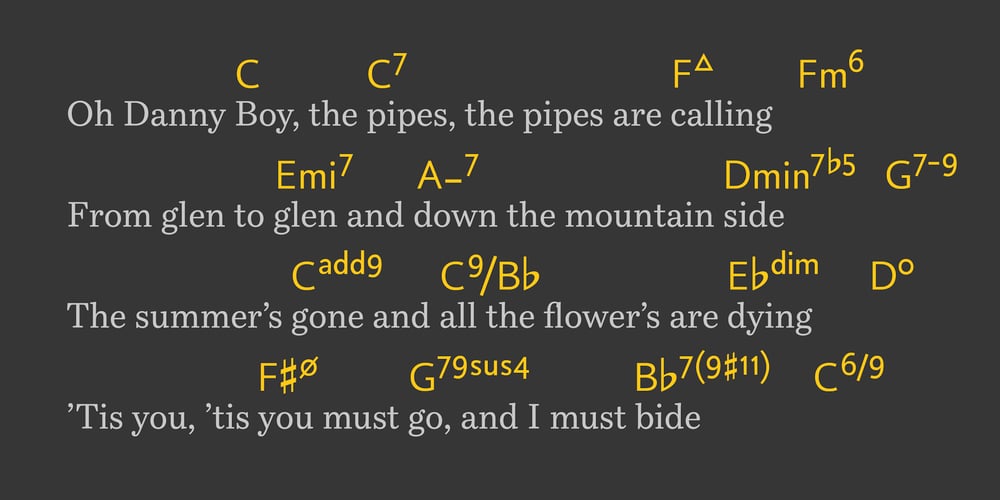
Chord Symbols Light
Chord Symbols Light font
Chord Symbols Light Font Family was designed by Tijs Krammer and published by Tijs Krammer. Chord Symbols Light contains 1 styles and family package options. Chord Symbols is a font for musicians. With this font, you can quickly write beautiful chords, using only simple keyboard characters as input. Musicians tend to write chords with regular characters. They use # instead of a genuine sharp, b instead of a genuine flat, dim instead of a small circle, etc. With Chord Symbols, your chords will be better looking, more easily readable and more efficiently notated. Chord Symbols helps you to write the chords the way you like it. Whether you prefer ‘maj7’ or ‘m7’ or a small triangle for a major seventh, whether you want ‘m’, ‘mi’, ‘min’ or a horizontal line for a minor chord, this font will suit you. Chord Symbols is originally created out of the need to write chords above pop song lyrics. It is designed to also work smoothly in music notation software, like Sibelius, Finale and Encore.